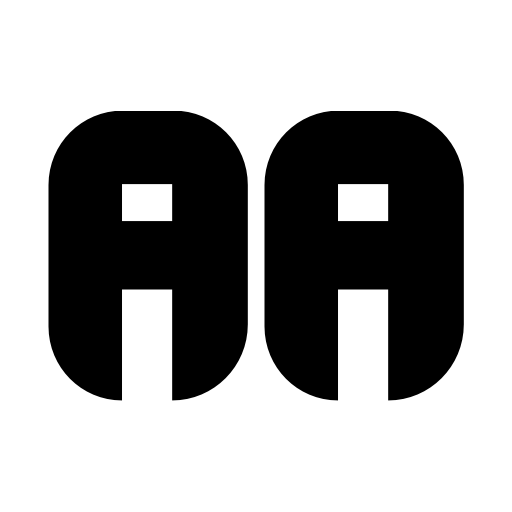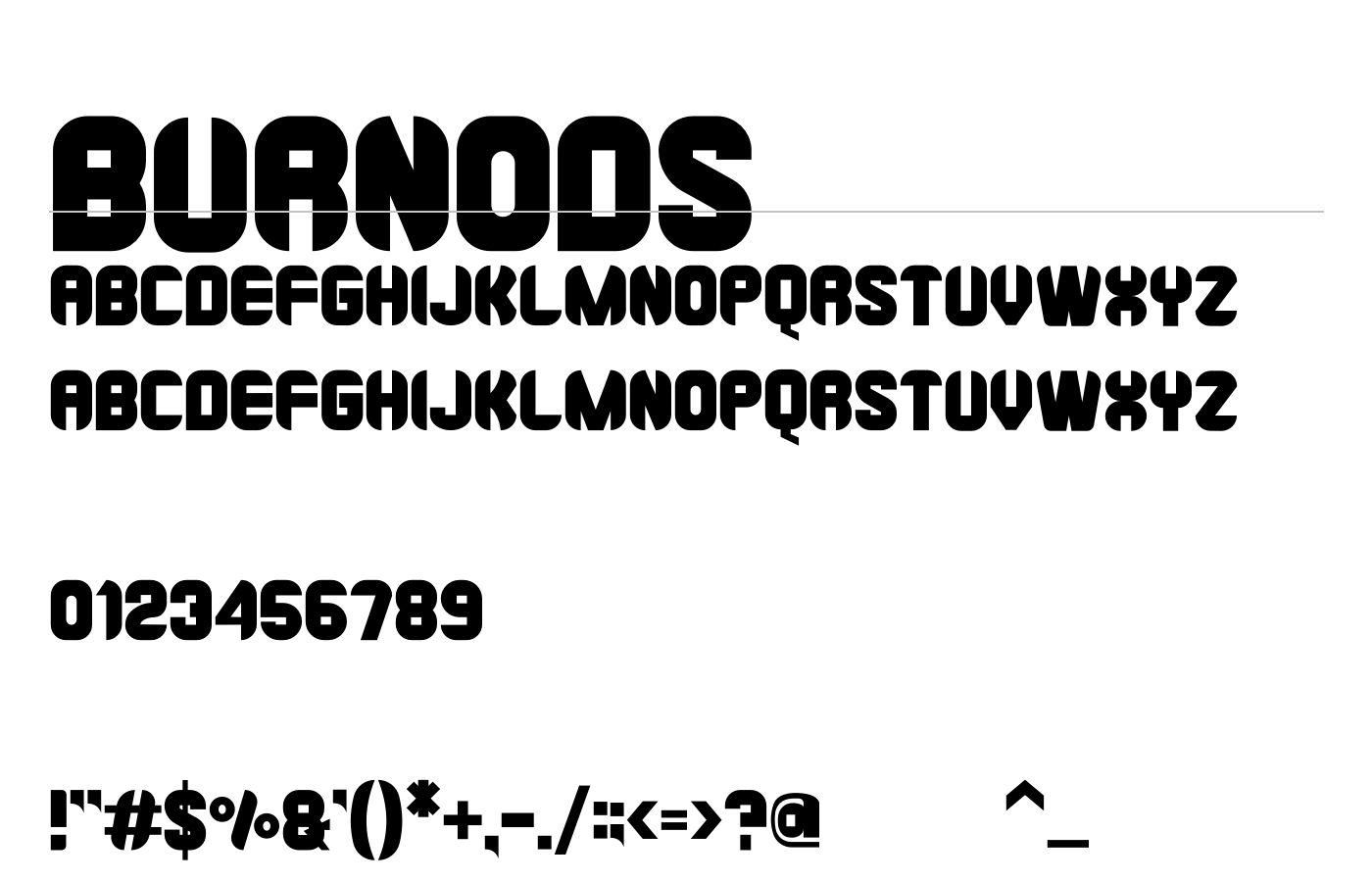
BURNODS is a bold, condensed sans serif font with a strong geometric influence, featuring thick strokes and rounded edges that create a modern yet playful appearance. Its unique letter shapes and clean lines make it highly suited for eye-catching headlines, logos, and branding where a distinctive and impactful look is desired. This font works well in creative and contemporary contexts, adding a visual punch while maintaining clarity and presence.
BURNODS Font
About BURNODS Font
| Font family | BURNODS Font |
| Designer | AKHMAD RIYAN DANUARTA |